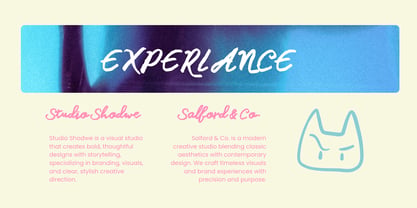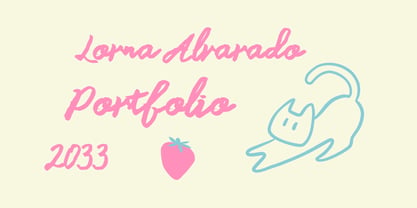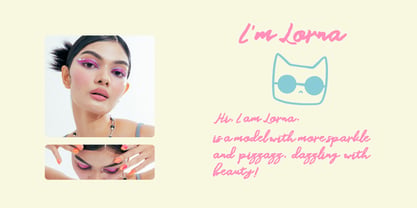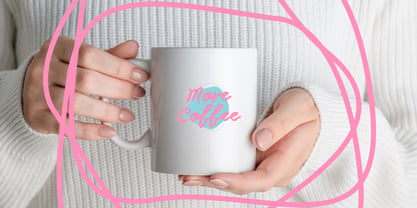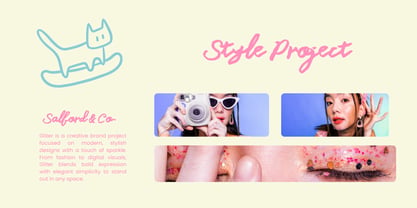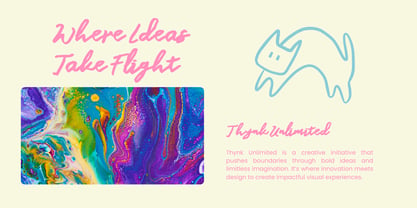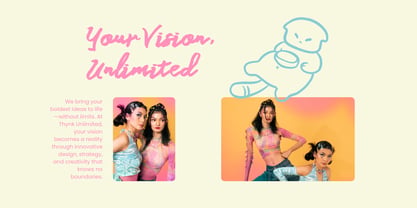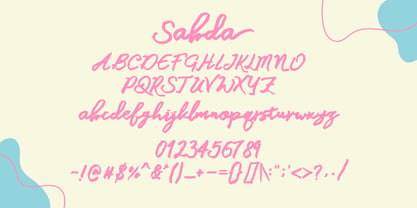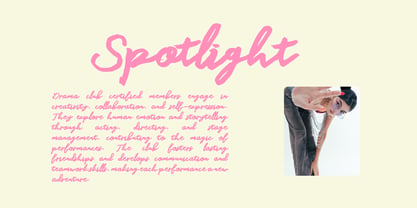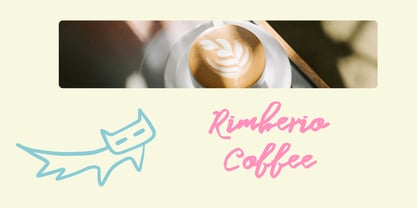
Sebda
von Gatype
Die Schriftfamilie Sebda wurde von khaidir entworfen und von Gatype veröffentlicht. Sebda enthält 1 Stile. Mehr über diese Familie
Sebda – Expressive Ink Script Font
Introducing Sebda, a modern script font written with a bold ink marker style. Designed with natural flow and expressive strokes, Sebda brings a personal, handcrafted feel to your designs — perfect for branding, quotes, packaging, posters, and more.
This font includes uppercase & lowercase characters, numerals, a wide range of punctuation, multilingual support, and 33 custom ligatures to enhance smoothness in lowercase letter combinations.
Designer: khaidir
Foundry: Gatype